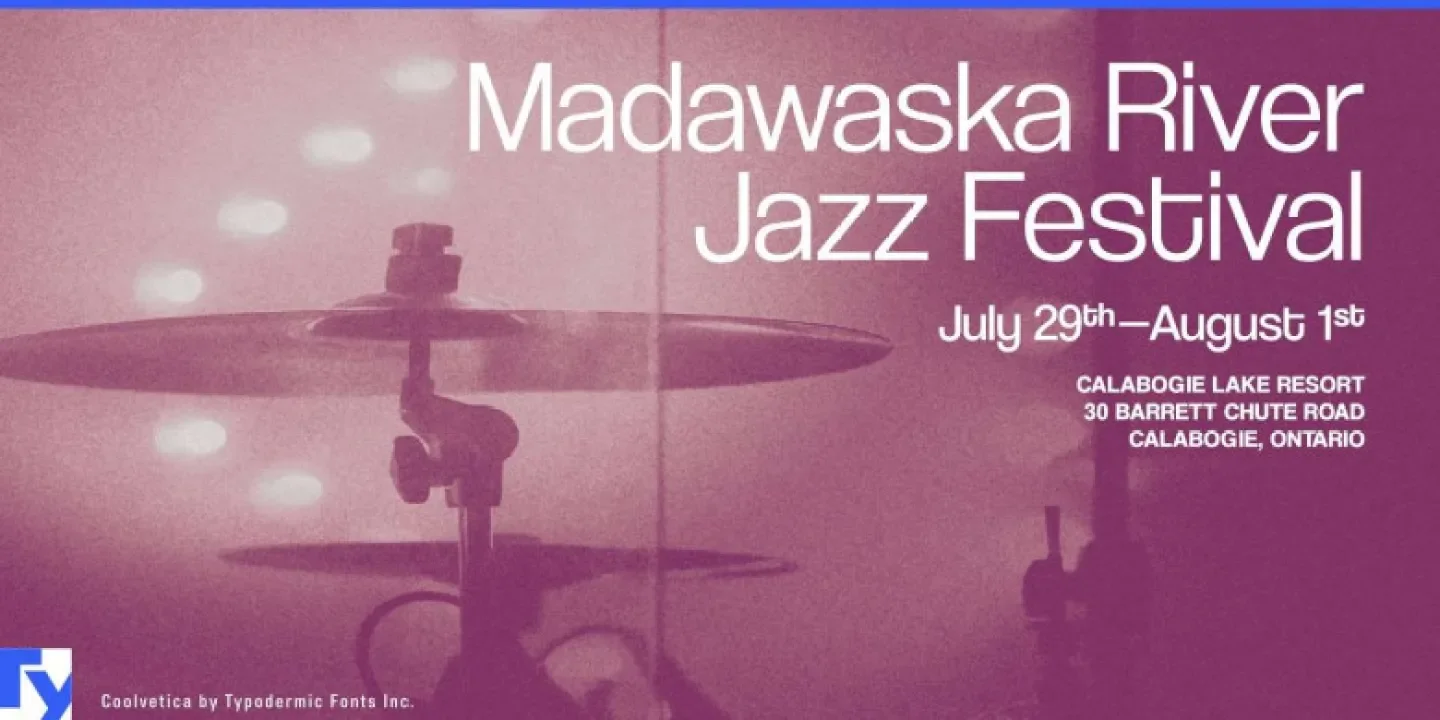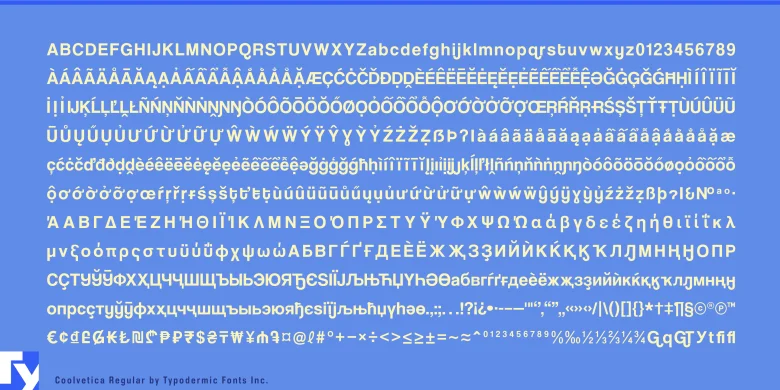
Coolvetica Font is pure retro energy. Inspired by a 1970s American storefront logo, it reimagines Helvetica with tight kerning, quirky curls, and a lot more personality. Back then, designers were taking Helvetica and making it fun, and Coolvetica captures that spirit perfectly.
With playful terminals, perfectly circular O's, and an optional swash G, this Font is made for big, bold headings and anything that wants to feel a little funky. It's not meant for paragraphs; it’s a display font that likes to be seen.
- Designer: Ray Larabie (Typodermic Fonts)
- Released: 1999
- Style: Retro-inspired sans serif based on custom 1970s Helvetica logotypes
- Multiple styles: Regular, Italic, Condensed, Compressed, Crammed
- Tight kerning and softened corners for a friendlier vibe
- Stylized “G” with a swash (accessed via OpenType alternates)
- Full Latin support, plus Cyrillic and Greek
- Includes math symbols, fractions, ordinals, and other special glyphs
- Great for logos, posters, signage, and bold headers
Coolvetica works best when it’s loud and proud, think vintage packaging, retro headlines, album art, or quirky branding. It pairs well with clean, minimalist fonts like Roboto or Raleway, which can help balance its playful curves.